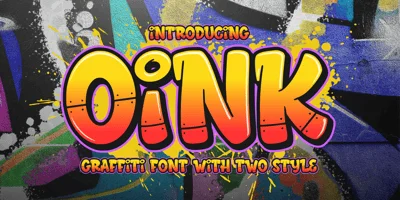
Oink Font
Oink Font is perfect for playful children's book publishing, farm-themed restaurant branding, petting zoo marketing materials, barnyard animal toy packaging, agricultural fair promotions, and whimsical farm-to-table campaigns. Its cheerful character makes it ideal for children's entertainment venues, farm tourism operators, agricultural education centers, pig-themed specialty restaurants, and any application requiring fun typography that conveys farmyard charm, playful innocence, and the delightful joy of farm animal adventures.
Oink Font is exciting because it captures the playful spirit and adorable charm of farm animals through delightfully rounded letterforms that bounce with the same joyful energy as piglets playing in barnyard mud. Its plump proportions and farm-inspired details evoke the simple pleasures of country life and the innocent joy that farm animals bring to children and families, making it perfect for brands seeking to create heartwarming, family-friendly experiences. The font's barnyard character transforms ordinary text into expressions of rural happiness.
Oink Font family includes farm-inspired weight variations typically featuring Light, Regular, Medium, and Bold options with playful styling that maintains barnyard authenticity. The family often incorporates farm symbols, animal icons, and agricultural elements designed for family-friendly applications, providing designers with comprehensive tools for creating authentic, farm-focused typographic compositions.
When selecting farm-themed typography solutions, Oink Font represents an exceptional choice for agricultural and family entertainment projects. This delightful typeface brings instant barnyard authenticity to any design, making it invaluable for farm tourism businesses, children's brands, and agricultural organizations celebrating farm life. Whether you're developing farm-themed attraction branding, creating children's agricultural education materials, or designing family-friendly farm marketing campaigns, Oink Font provides the playful charm and farm authenticity essential for capturing the joy of rural life in today's family-focused agricultural entertainment marketplace.